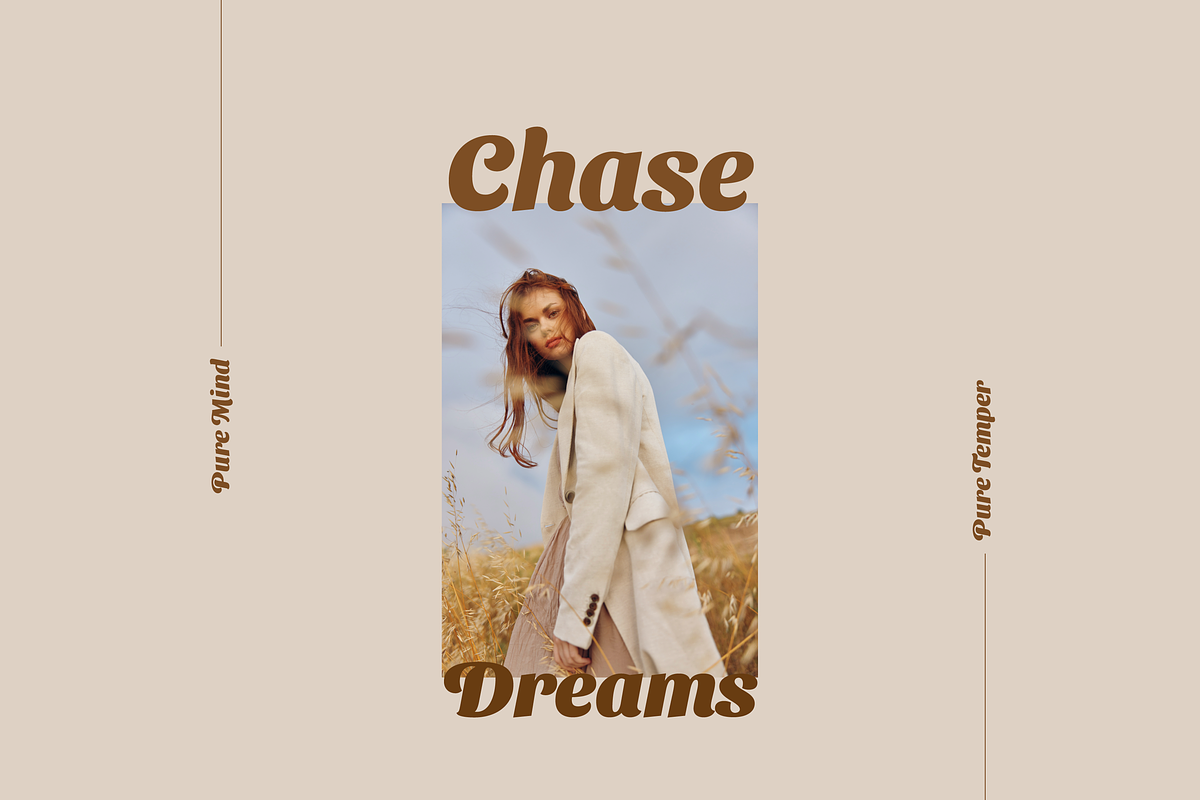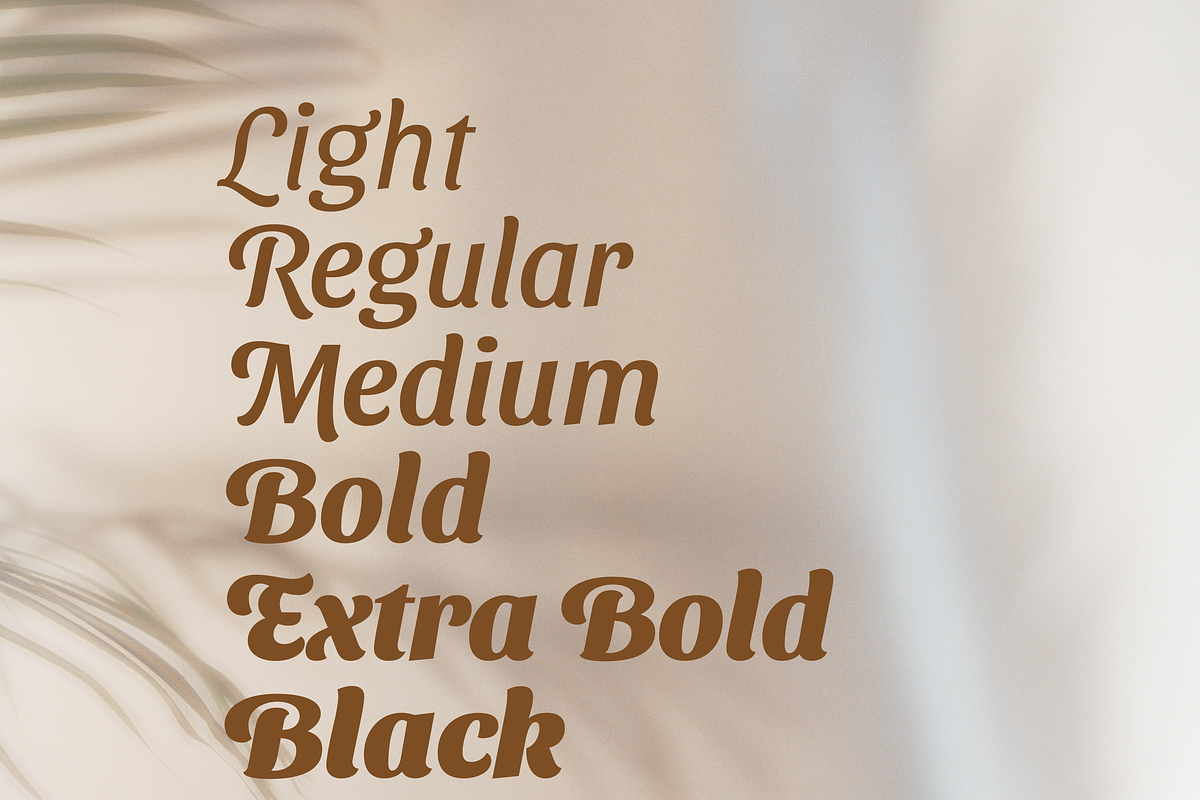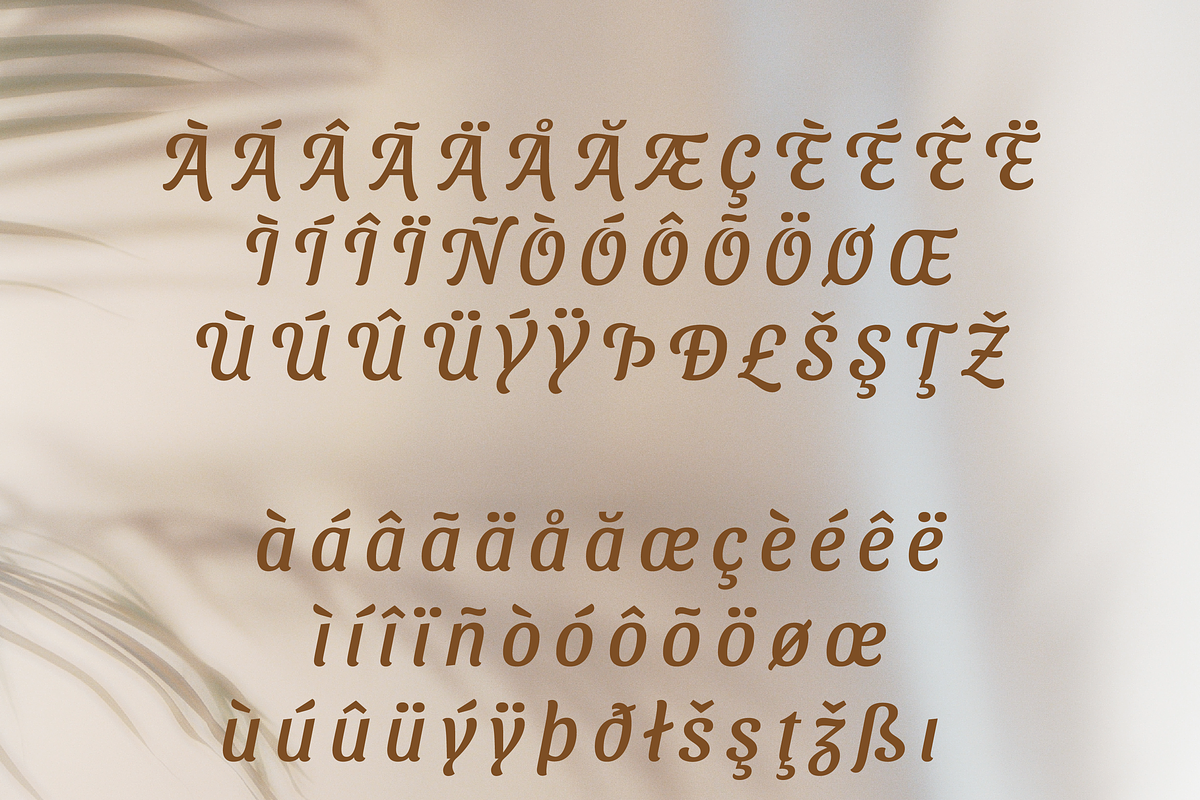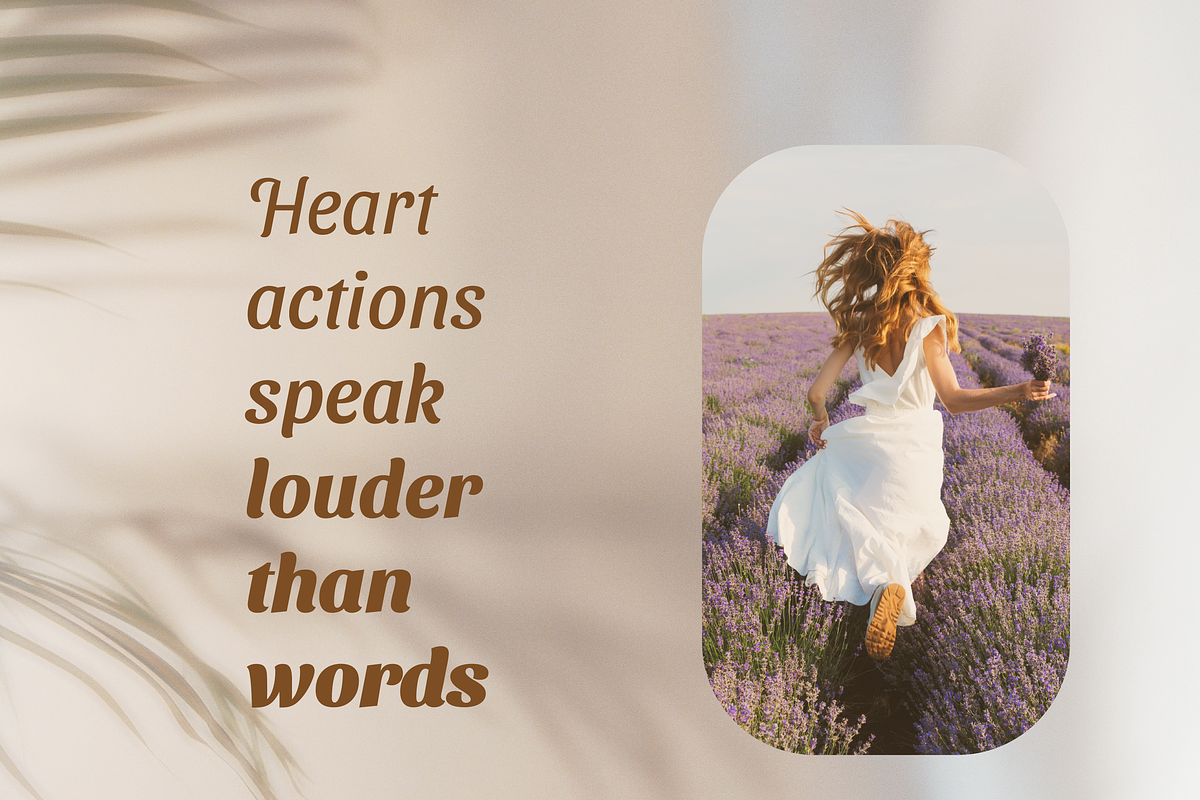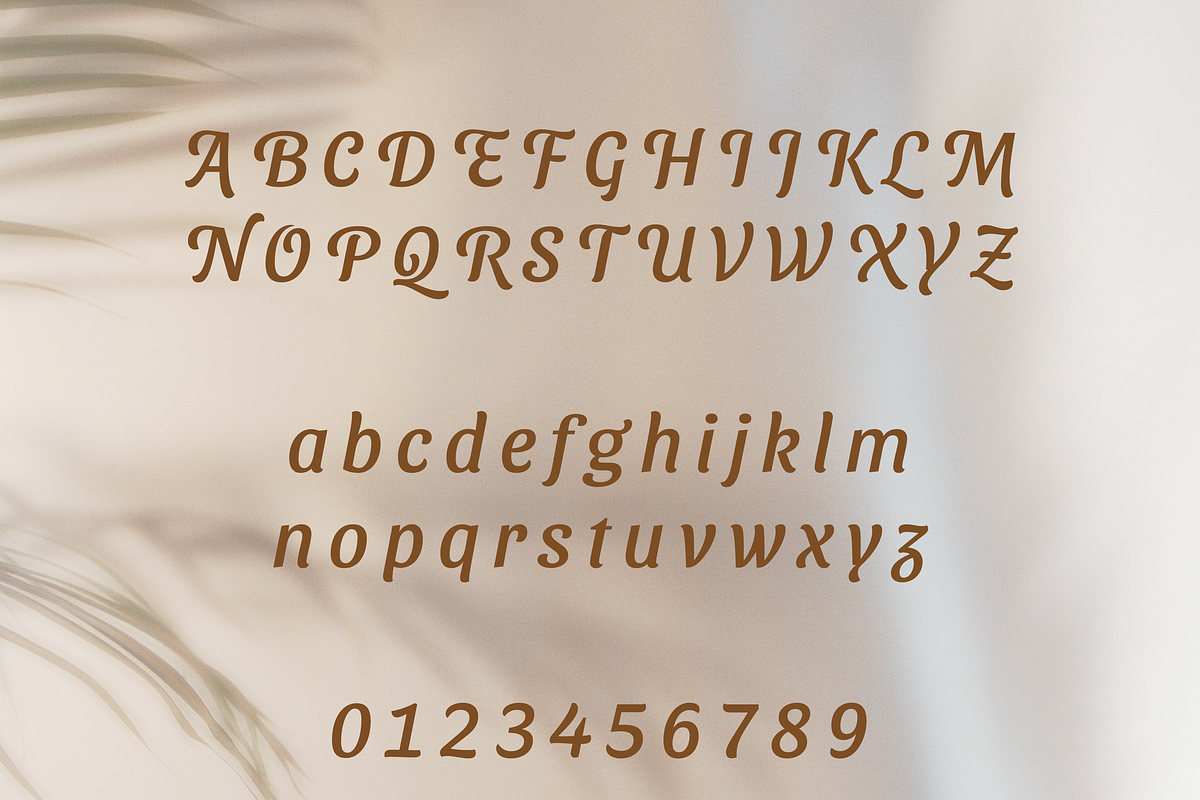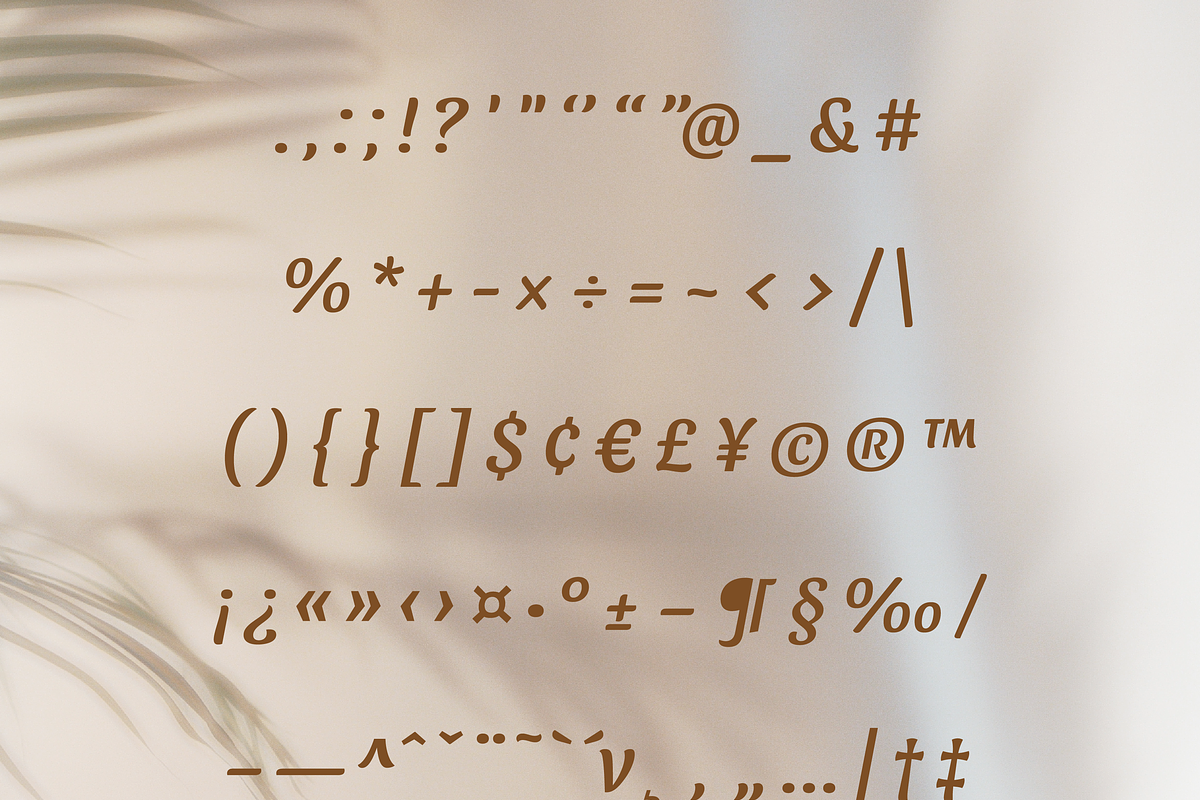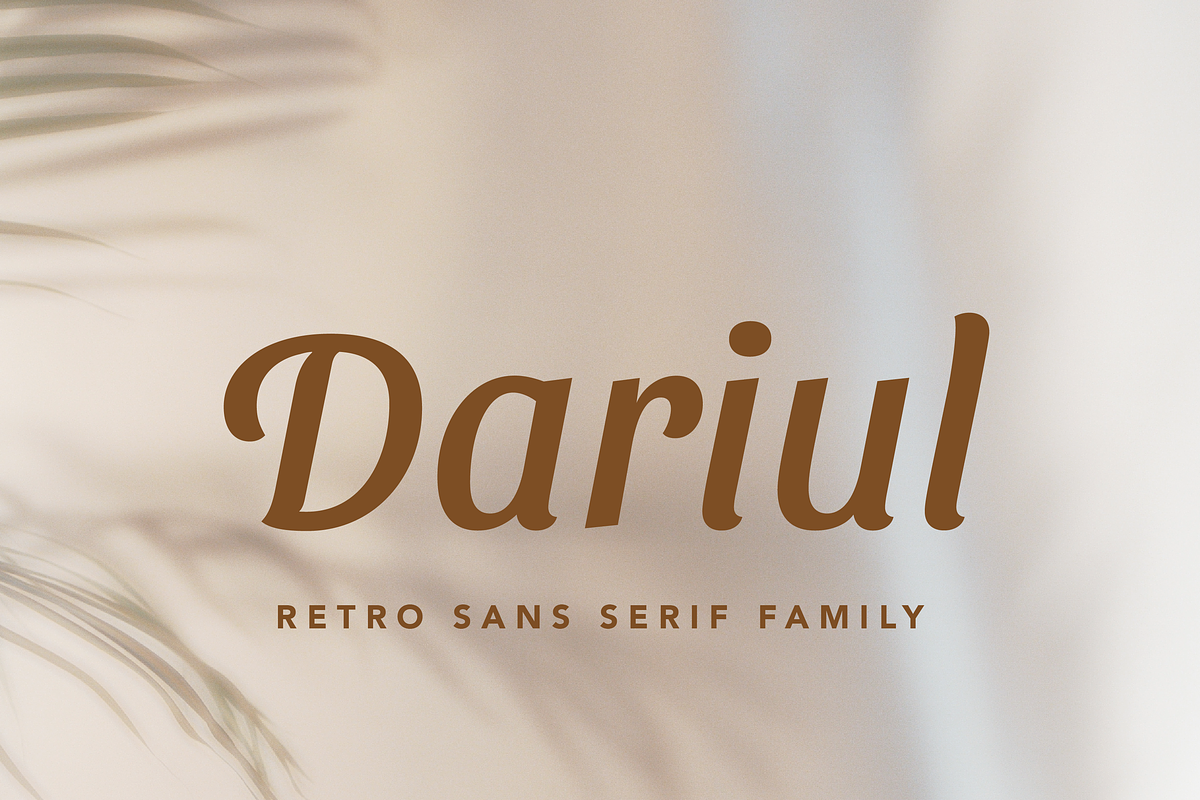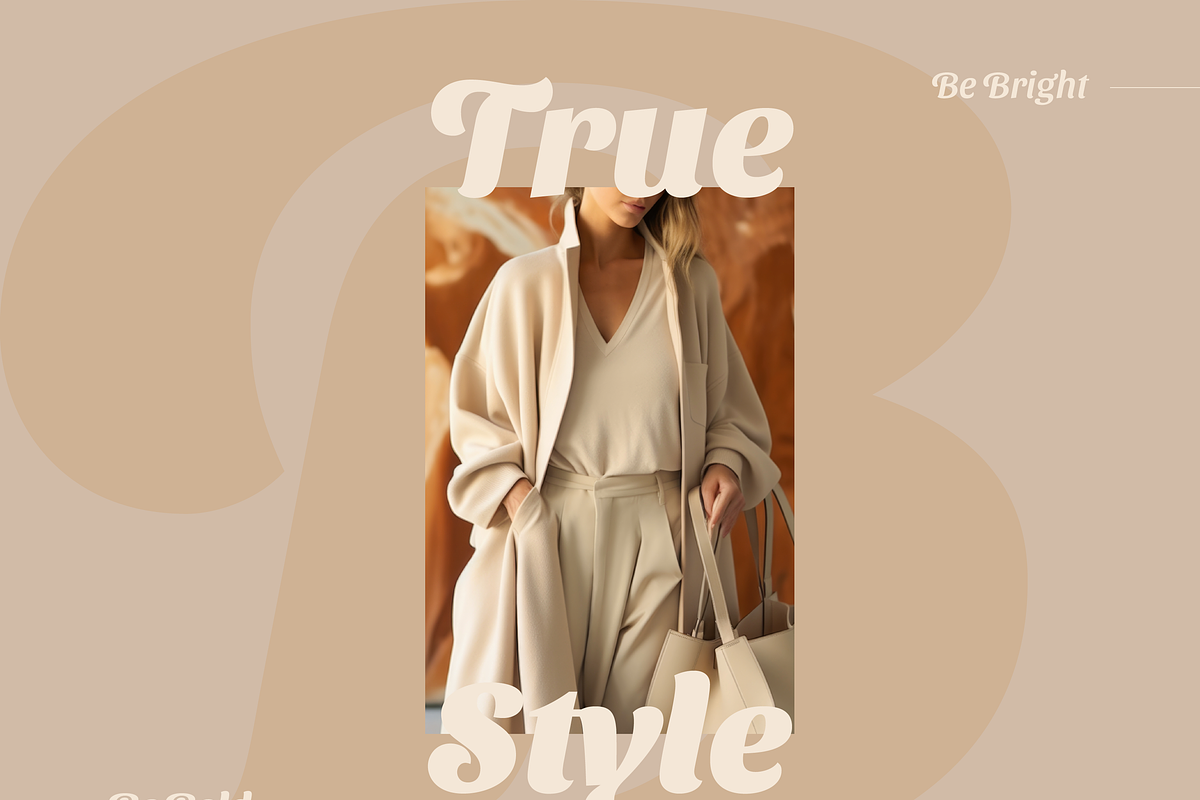
Dariul Sans Font Family
Dariul Sans – A Delightfully Lively Font with a Happy Soul
Dariul is a vibrant and flavorful typeface that radiates joy and warmth at its core. Blending the artistry of calligraphy with the precision of typography, its lowercase letterforms flow with effortless charm, creating a natural and inviting feel.
Whether you're crafting playful designs or polished visual identities, Dariul brings the perfect combination of expressiveness and style to make any project stand out with its unique charm and delightful energy.